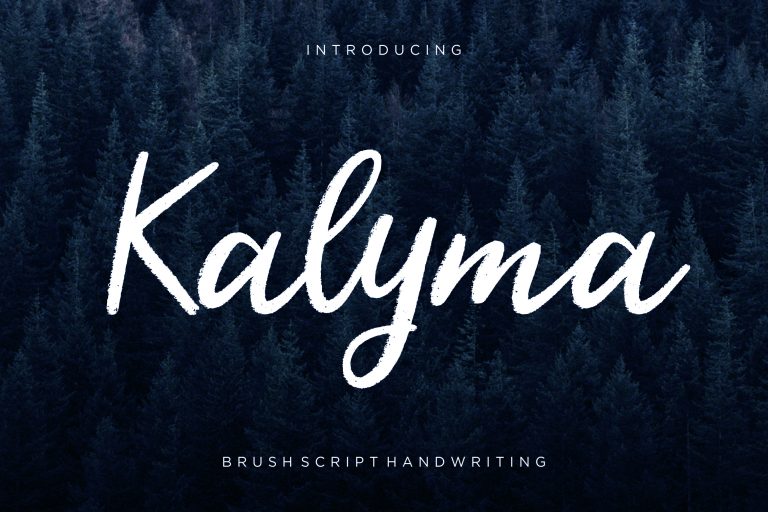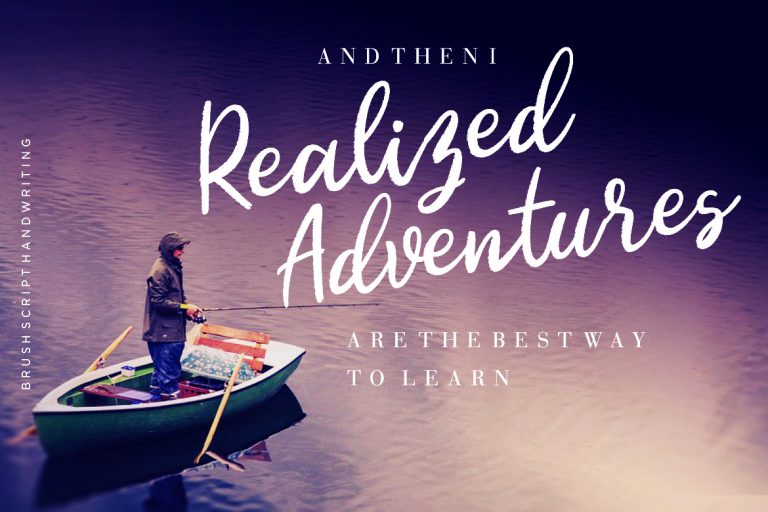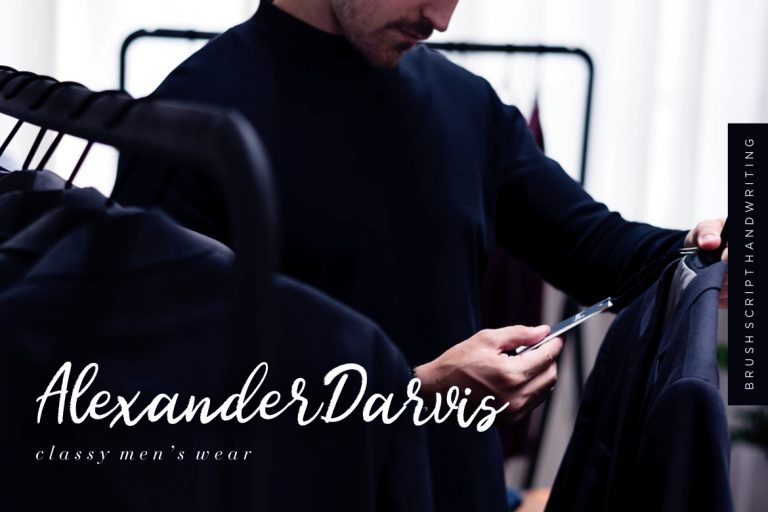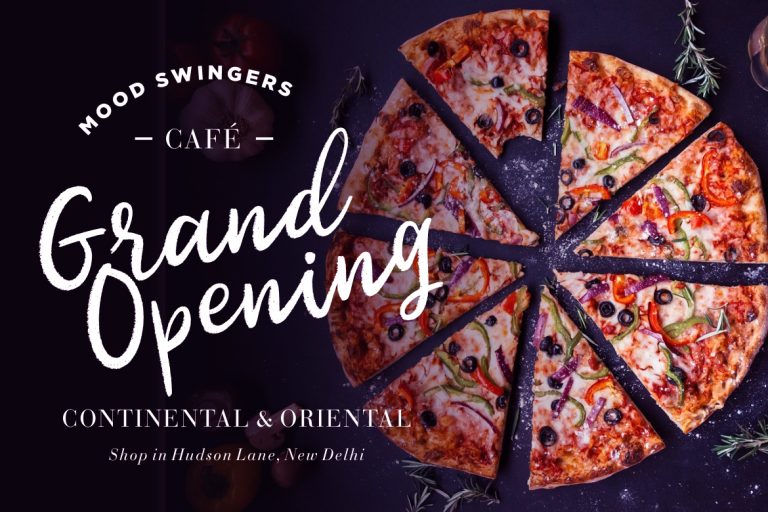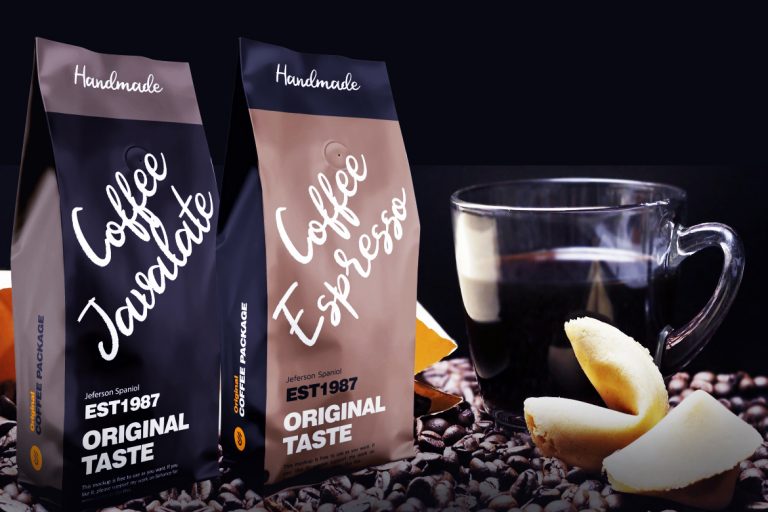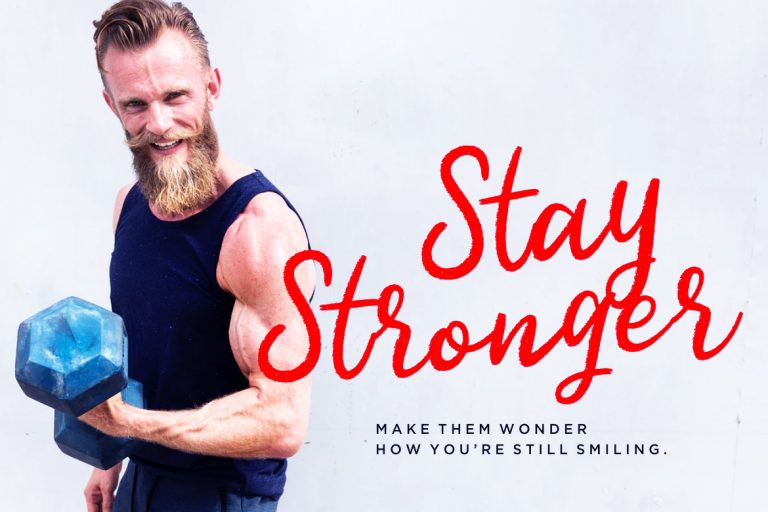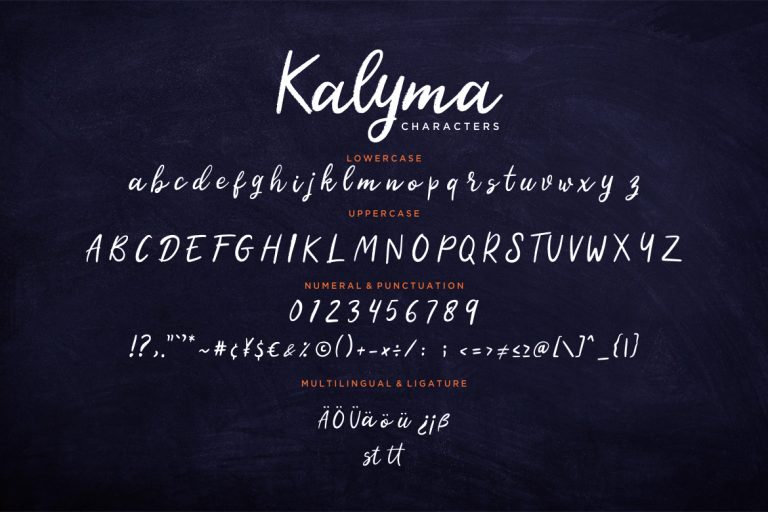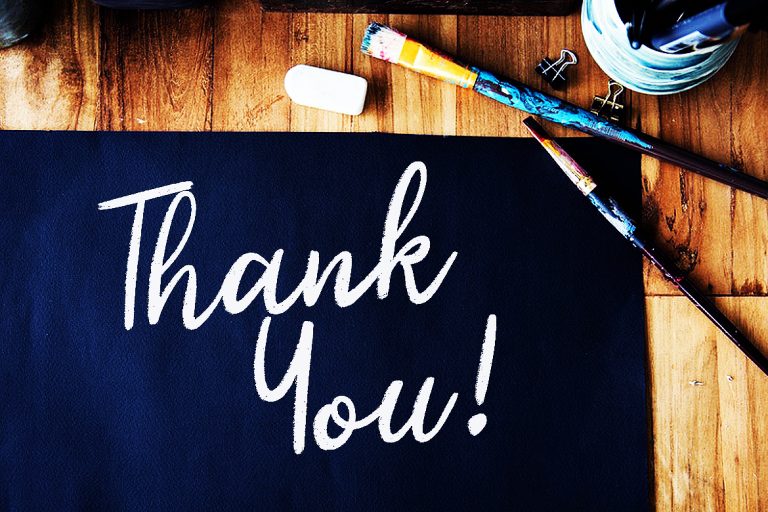
Kalyma Brush Script
Kalyma is one our collection which brush style and natural handwriting will make your project looks amazing.
Kalyma is perfect for branding projects, logo, wedding designs, social media posts, advertisements, product packaging, product designs, label, photography, watermark, invitation, stationery and any projects that need handwriting taste.
- Fonts include multilingual support for; ä ö ü Ä Ö Ü ß ¿ ¡